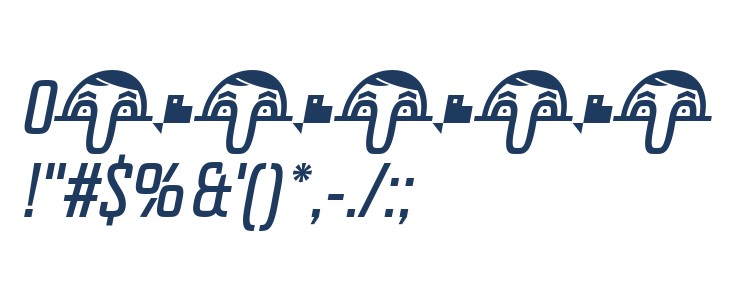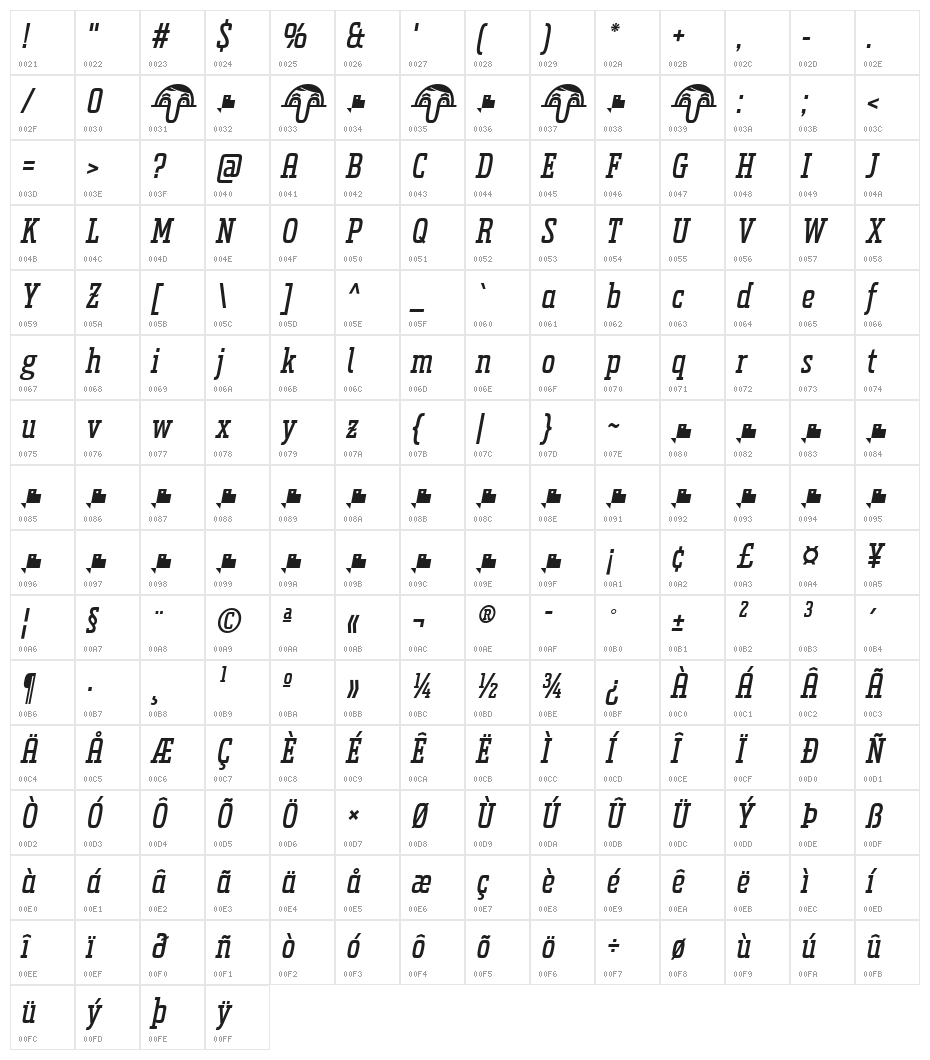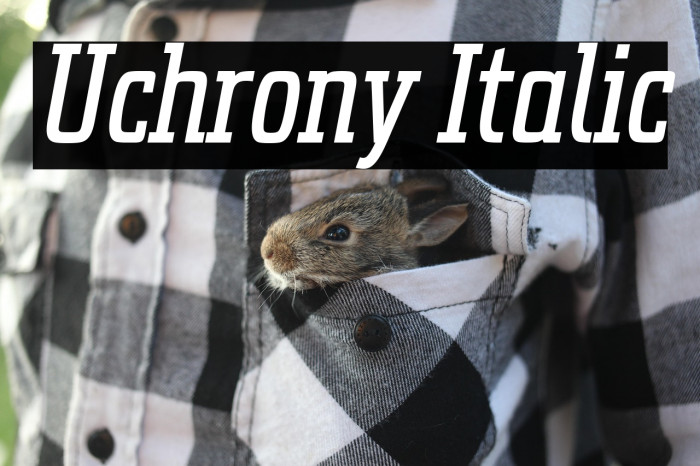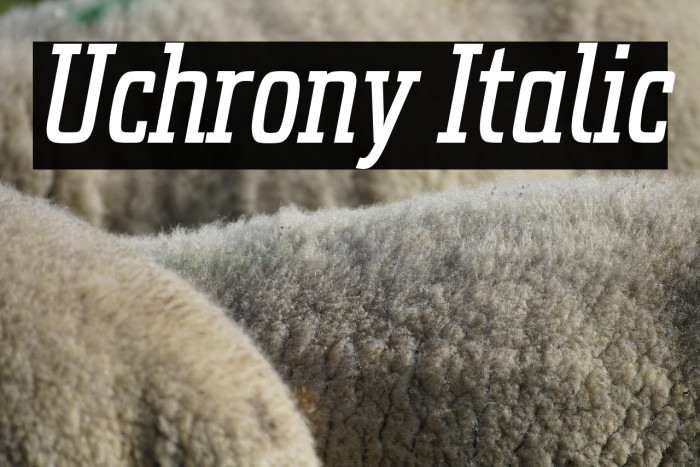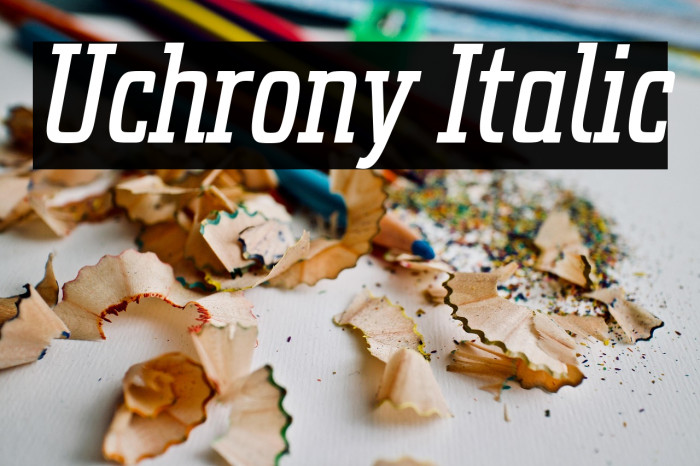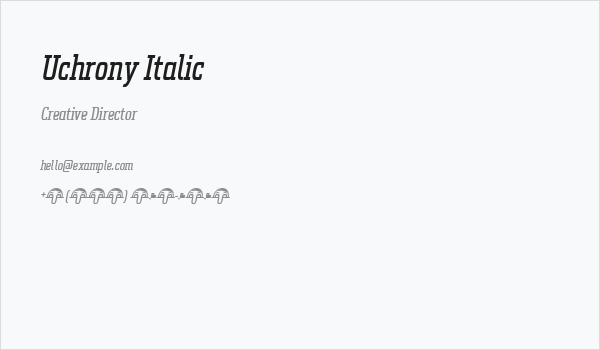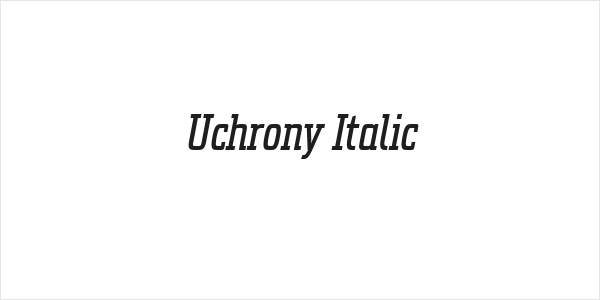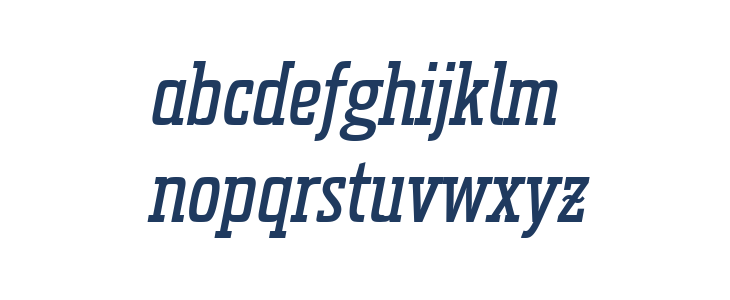
Uchrony Italic Font
Uchrony Italic Description
This font features a dynamic and modern italic style with a strong presence. The uppercase letters are bold and slightly condensed, giving a sense of urgency and movement. The lowercase letters maintain a consistent slant, enhancing the italic effect while ensuring readability. Numbers are uniquely styled with a playful, artistic flair, adding character to the overall design. Special characters are well-integrated, maintaining the font's cohesive look. The font's design is suitable for projects that require a contemporary and energetic feel, making it ideal for branding, advertising, and editorial design.
| Proposed Projects | Ideal for branding, advertising, editorial design, and dynamic visual identities. |